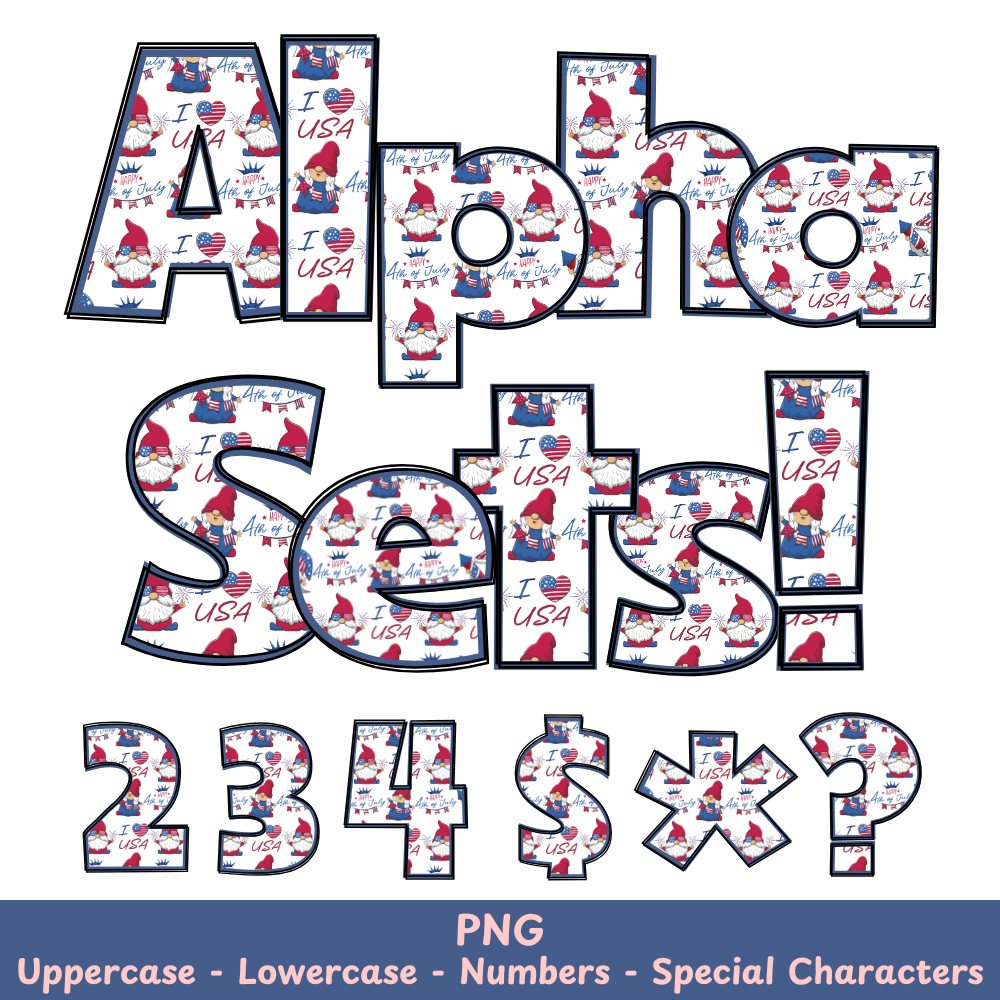
Blue Fourth of July Gnome PNG Font
Blue Fourth of July Gnome Alpha Set PNG Font Pack
Add a touch of whimsy to your Fourth of July crafts with our Blue Gnome PNG Font. With this font, you can easily create fun and festive designs for all of your holiday projects. Perfect for sublimation, DIY decor, and more.